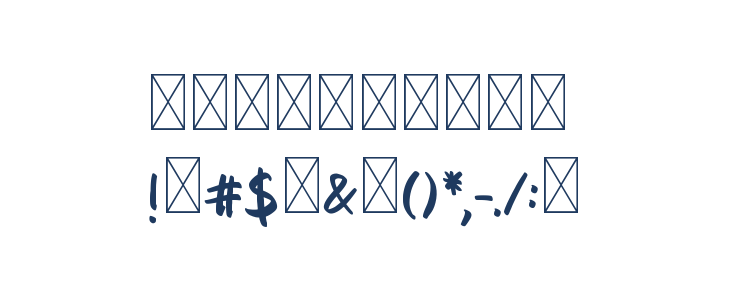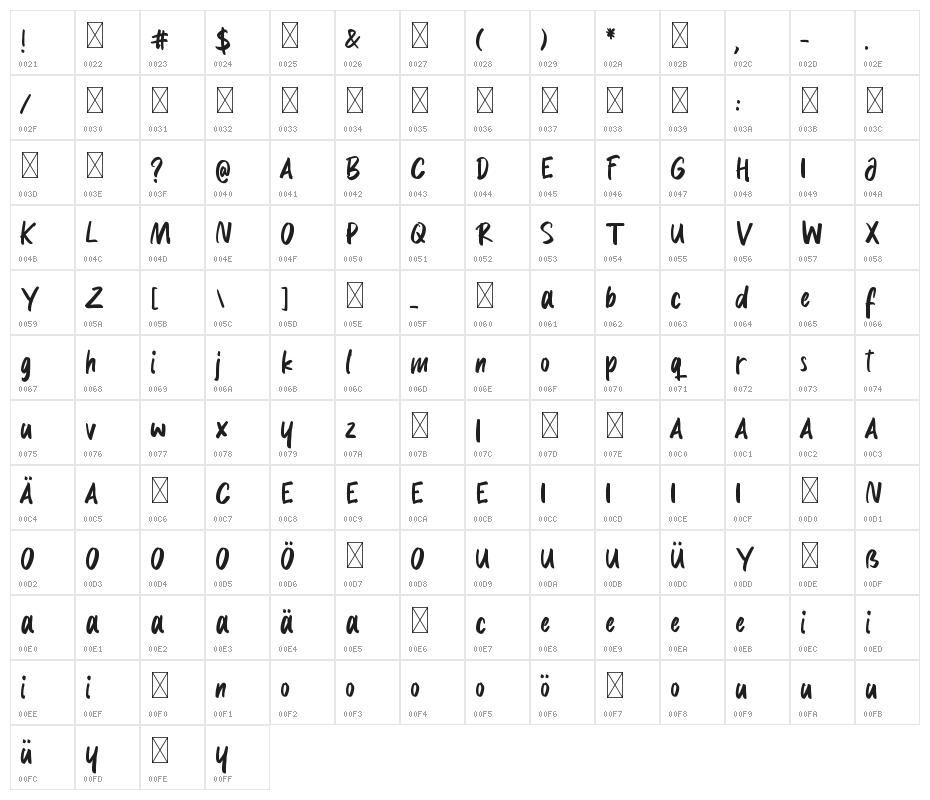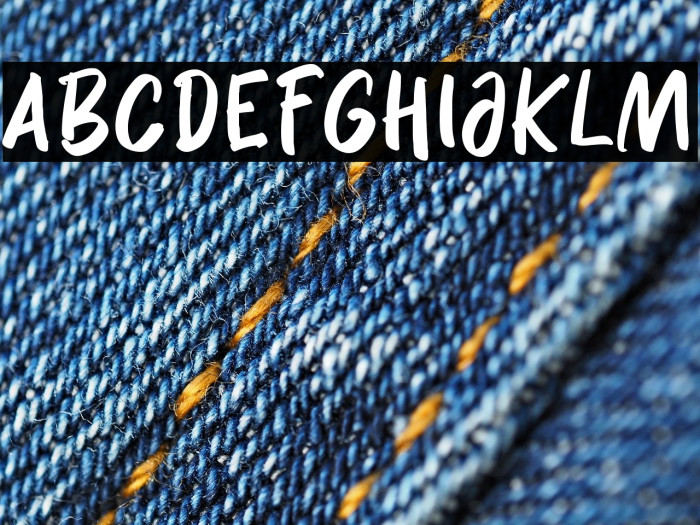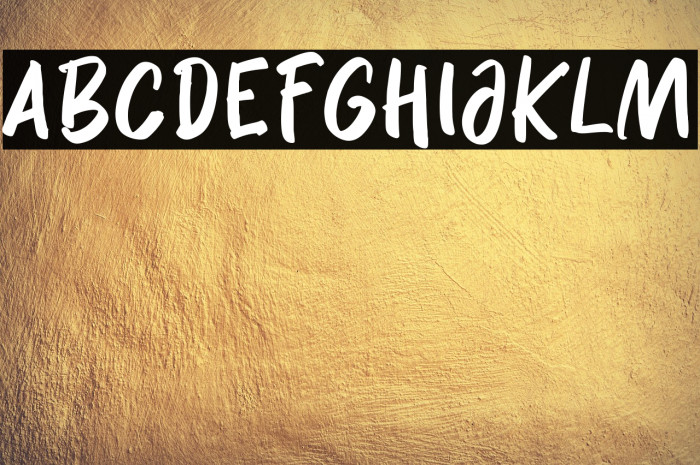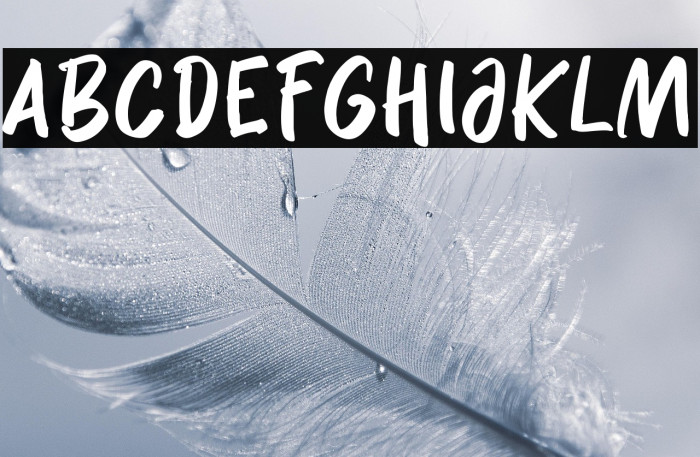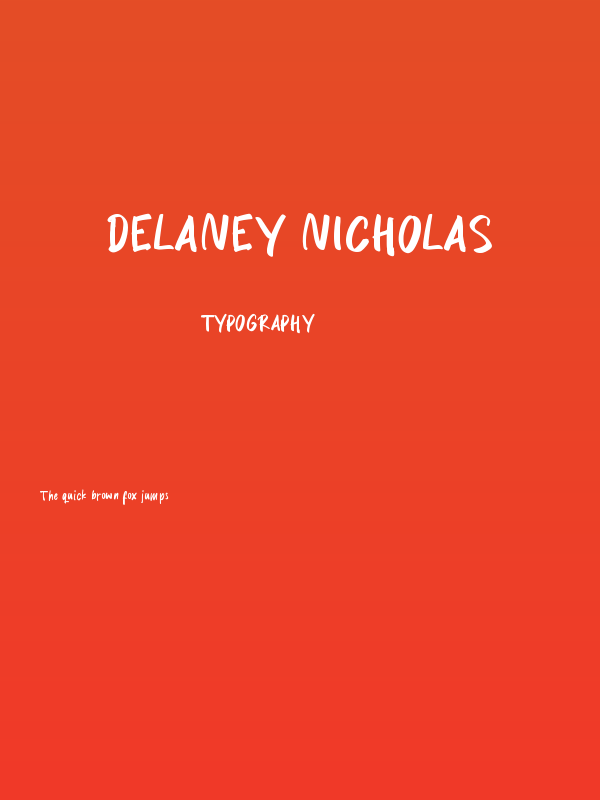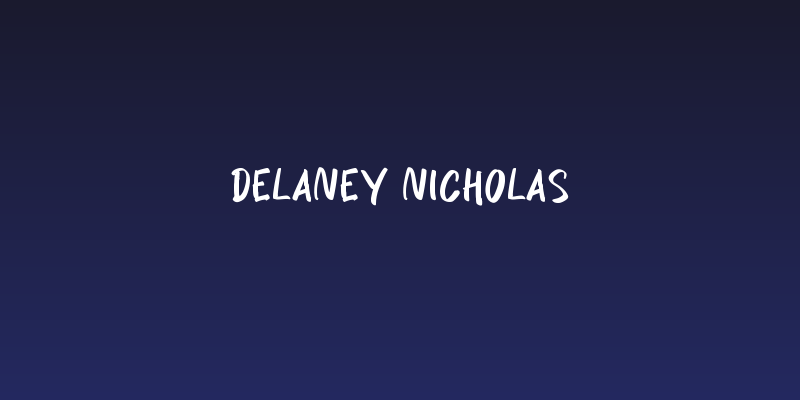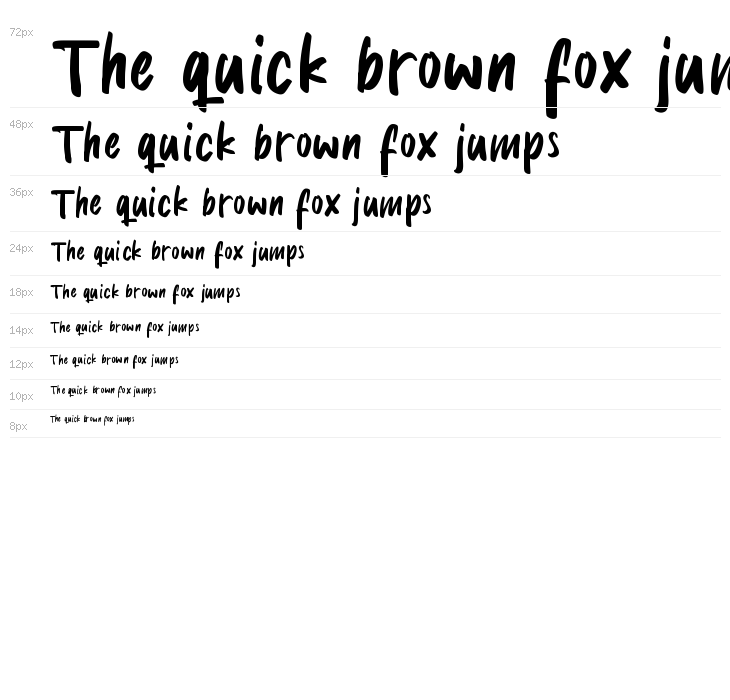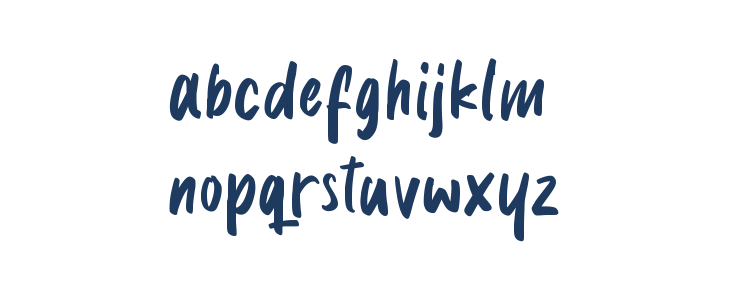
Delaney Nicholas Font
Delaney Nicholas Description
This font features a bold and expressive handwritten style, characterized by its fluid and dynamic strokes. The uppercase letters are slightly taller and more prominent, while the lowercase letters maintain a consistent flow with a casual and approachable feel. The characters exhibit a playful yet sophisticated appearance, making them suitable for creative and informal designs. The special characters are integrated seamlessly, adding to the font's versatility. Overall, this font exudes a sense of personality and charm, perfect for projects that require a touch of individuality and flair.